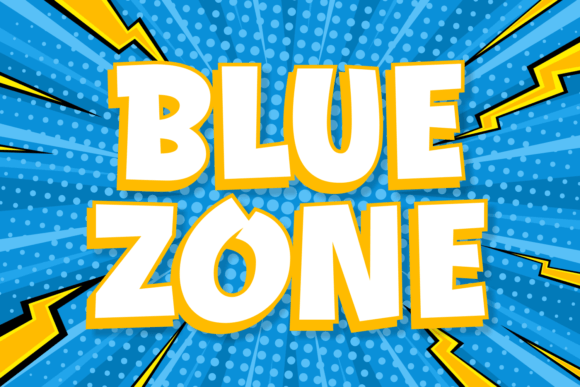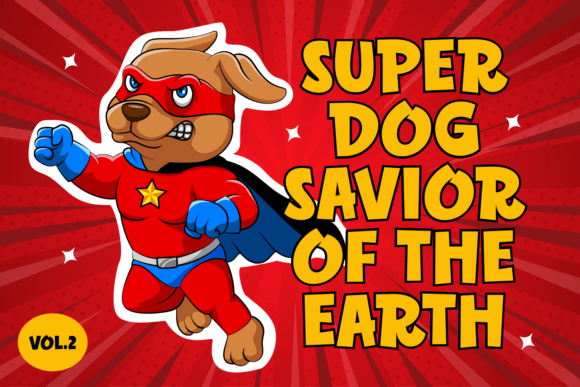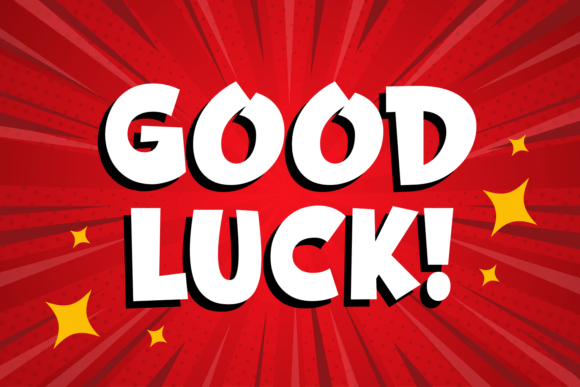
The Ultimate Guide to High Rank Font: Adding a Touch of Whimsy to Your Designs
I’ll never forget the time I was working on a project for a children’s book, and I was struggling to find the perfect font to match the playful tone of the story. The client wanted something fun, light-hearted, and engaging, but I just couldn’t seem to find the right fit. That’s when I stumbled upon High Rank Font, a cartoon display font that instantly brought the design to life. In this article, I’ll share my experience with High Rank Font, its features, and how to make the most of it in your designs.
An Honest Review of High Rank Font
What I Love About High Rank Font ✨
• Fun and playful design: High Rank Font is perfect for children’s materials, toy packaging, or any design that requires a light-hearted approach.
• Easy to read: Despite its playful nature, High Rank Font is surprisingly easy to read, even at smaller sizes.
• Versatile: This font can be used for headings, titles, or even short paragraphs, making it a great addition to any design project.
• ⚠️ Limited use for body text: While High Rank Font is great for headings and titles, it may not be the best choice for longer blocks of text.
• ⚠️ May not work well for formal designs: As a playful font, High Rank Font may not be suitable for more formal designs, such as business cards or corporate branding.
One of the best things about High Rank Font is its OpenType features and glyphs. With OpenType, you can access a range of alternative characters, ligatures, and stylistic sets that can add an extra layer of creativity to your designs.
The Backstory Behind High Rank Font
High Rank Font was designed by a team of creatives who wanted to create a font that would bring a touch of whimsy to designs. Inspired by classic cartoons and children’s books, High Rank Font is the perfect choice for anyone looking to add a playful touch to their designs.
Q: What is High Rank Font?
A: High Rank Font is a cartoon display font designed for use in children’s materials, toy packaging, and other designs that require a fun, light-hearted approach.